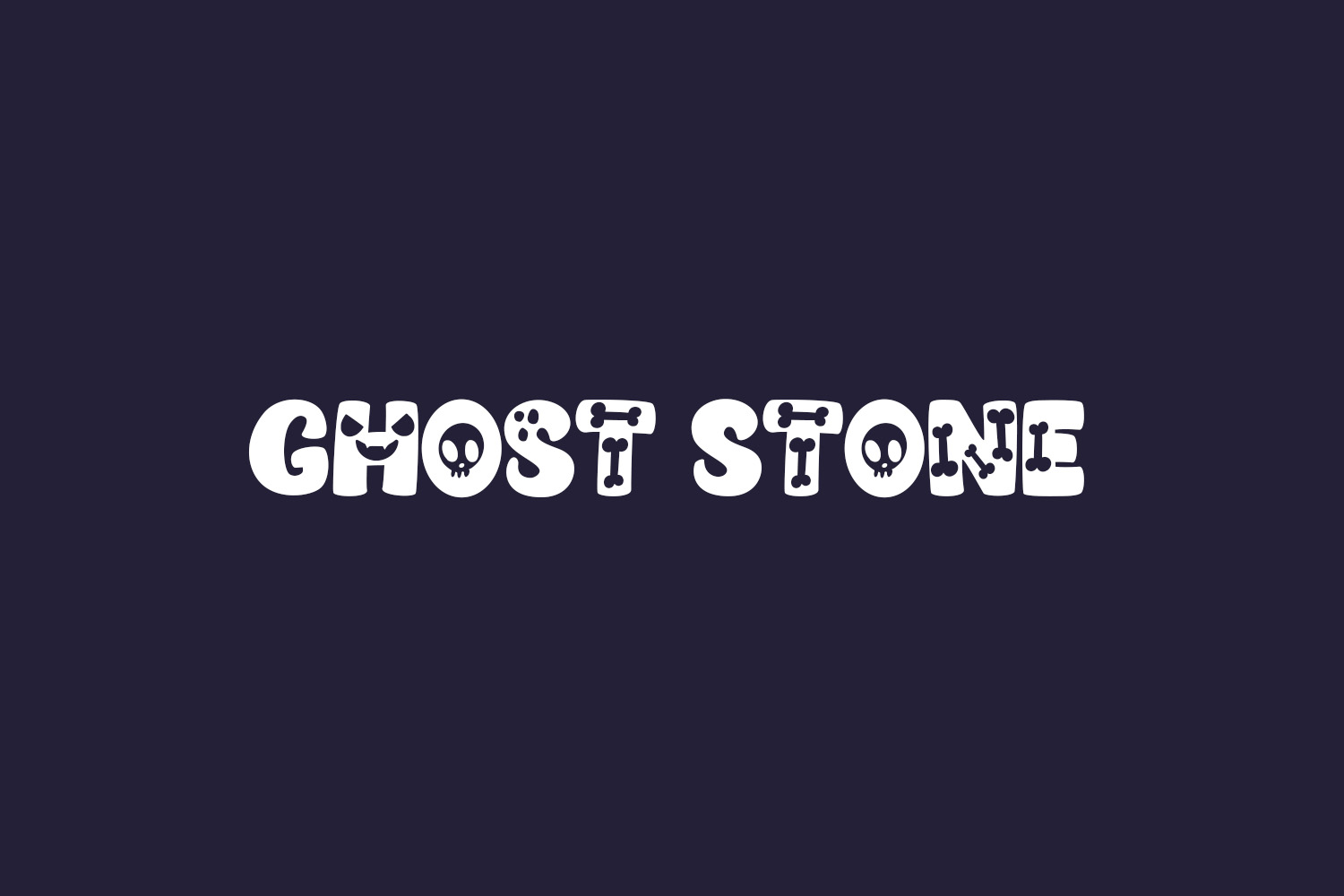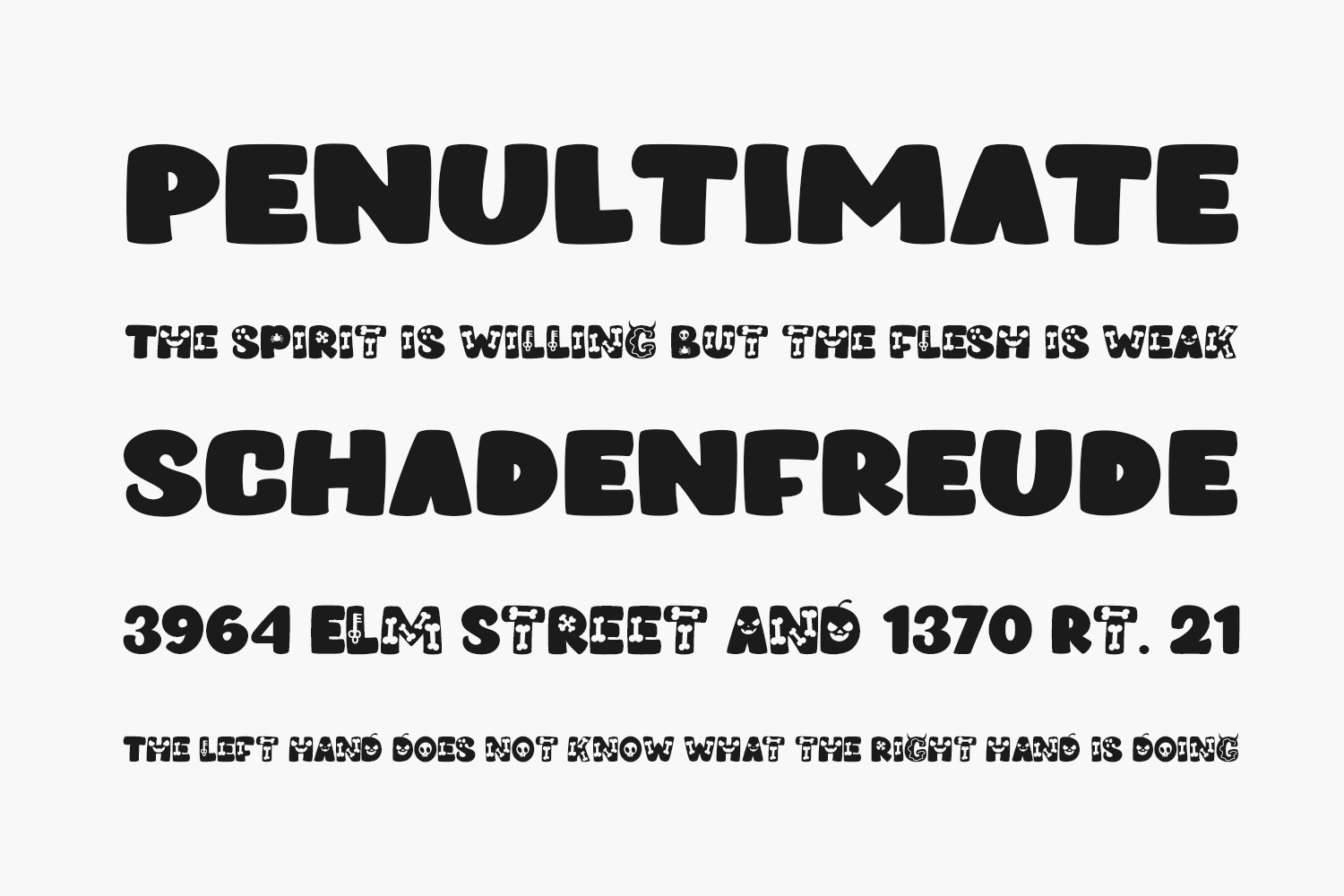
Ghost Stone Free Font is a fun and playful duo font (display and dingbats) featuring a scary theme. Masterfully designed to become a true favorite, this font has the potential to bring each of your Halloween ideas to the highest level. Ghost Stone Free Font was designed by Andrimada Creative and is free for personal use only. Please purchase the full version for commercial use.